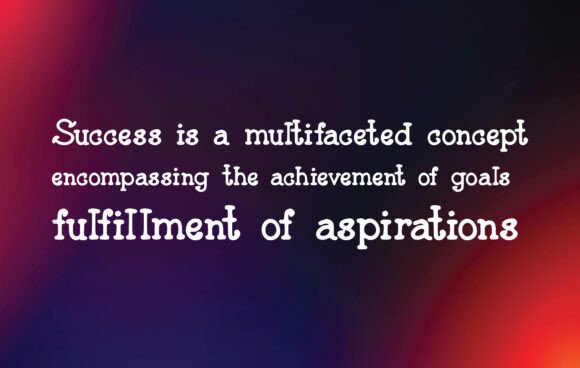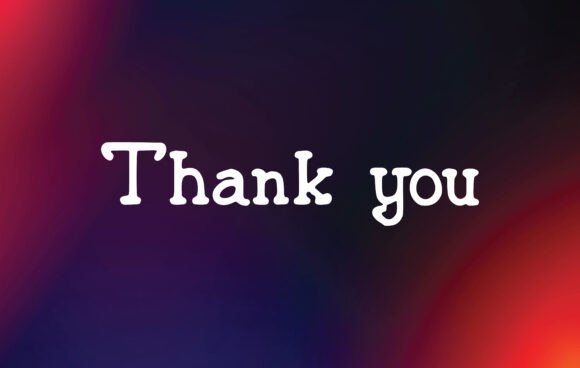
Discover the Elegance of Amalia Font: Elevate Your Designs with this Stunning Handwritten Font
Are you a designer or crafter looking for a font that can take your creative ideas to the next level? Look no further than Amalia Font, a lovely and beautiful handwritten font that is sure to impress. With its elegant and refined aesthetic, Amalia is the perfect choice for creating eye-catching logos, branding, and quotes that will leave a lasting impression on your audience.
The Characteristics of Amalia Font
Amalia Font is a unique and stylish handwritten font that boasts a range of characteristics that make it stand out from the crowd. Its flowing lines and curves give it a sense of movement and fluidity, making it perfect for creating dynamic and engaging designs. The font’s elegant and refined aesthetic also makes it suitable for a wide range of design applications, from luxury branding to wedding stationery.
Why Choose Amalia Font?
So why choose Amalia Font for your design projects? Here are just a few reasons why this stunning handwritten font is a great choice:
- Elegant and Refined Aesthetic: Amalia Font has a sophisticated and elegant aesthetic that is perfect for creating high-end designs that exude luxury and refinement.
- Versatile: Amalia Font is versatile and can be used for a wide range of design applications, from logos and branding to quotes and social media graphics.
- Easy to Read: Despite its elegant and refined aesthetic, Amalia Font is also easy to read, making it perfect for creating designs that need to communicate a message clearly and effectively.
- Unique: Amalia Font is a unique and distinctive font that will help your designs stand out from the crowd and leave a lasting impression on your audience.
How to Use Amalia Font in Your Designs
Amalia Font is easy to use and can be incorporated into your designs in a variety of ways. Here are a few ideas to get you started:
- Logos and Branding: Use Amalia Font to create stunning logos and branding that exude elegance and refinement.
- Quotes and Social Media Graphics: Amalia Font is perfect for creating eye-catching quotes and social media graphics that will engage and inspire your audience.
- Wedding Stationery: Amalia Font is a popular choice for wedding stationery, including invitations, save the dates, and thank you cards.
- Packaging and Product Design: Use Amalia Font to add a touch of elegance and refinement to your packaging and product designs.
Tips for Getting the Most Out of Amalia Font
Here are a few tips for getting the most out of Amalia Font:
- Experiment with Different Sizes and Colors: Amalia Font looks great in a range of sizes and colors, so don’t be afraid to experiment and find the combination that works best for your design.
- Pair with Other Fonts: Amalia Font pairs well with other fonts, so try combining it with a bold or sans-serif font to create visual interest.
- Use it Consistently: Use Amalia Font consistently throughout your design to create a cohesive and polished look.
In conclusion, Amalia Font is a stunning handwritten font that is perfect for designers and crafters looking to elevate their creative ideas to the next level. With its elegant and refined aesthetic, versatility, and ease of use, Amalia Font is a great choice for a wide range of design applications. Whether you’re creating logos and branding, quotes and social media graphics, or wedding stationery, Amalia Font is sure to impress.